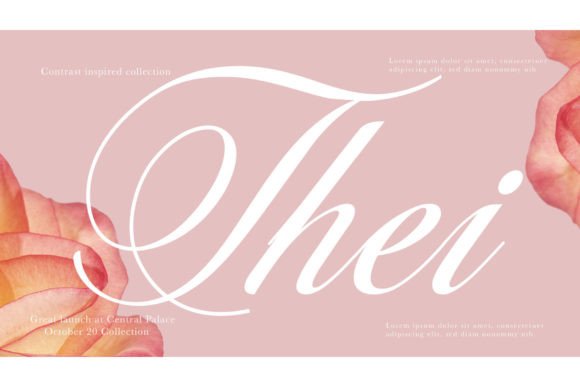
Behold Thei, the font that captures the essence of elegance, sophistication, and timeless beauty. Meticulously designed by the talented artists at [Name of Font Foundry], Thei is a modern calligraphy script font that seamlessly blends tradition with innovation. Its intricate curves and delicate strokes evoke a sense of luxury and refinement, adding a touch of exclusivity to your creative endeavors.
With its comprehensive character set, Thei offers unparalleled versatility, effortlessly adapting to a diverse range of design projects. Whether you seek to craft stunning logos, captivating headlines, elegant invitations, or polished branding materials, Thei will elevate your creations with its innate charm and grace.
Unleash your imagination and let Thei guide you into a realm of creative possibilities. Its flowing, almost hypnotic lines are reminiscent of calligraphy from the golden age, yet infused with a contemporary flair that ensures it remains relevant and impactful in today's digital landscape.
Embrace Thei, the font that elevates designs to new heights of sophistication. Its timeless appeal and modern sensibilities make it an indispensable tool for designers seeking to make a lasting impression. Download Thei today and embark on a journey of creative exploration, where your designs will shine with unparalleled elegance and beauty.